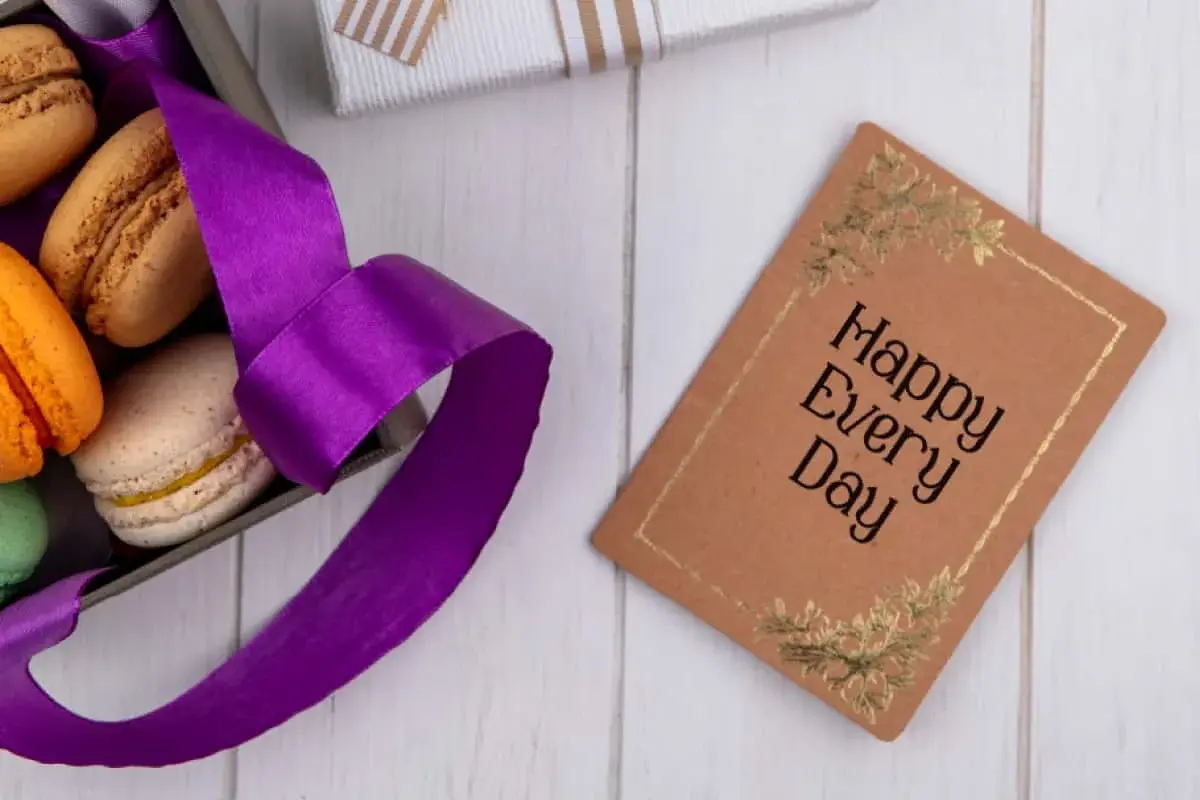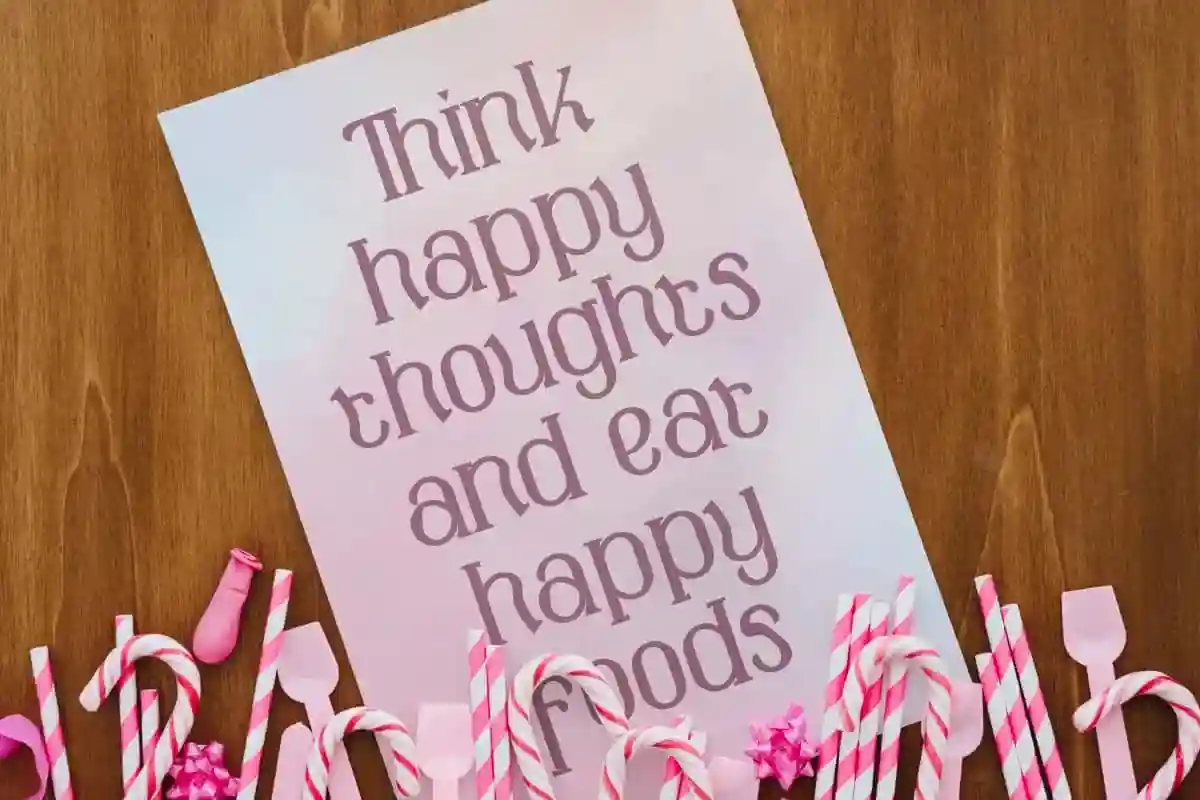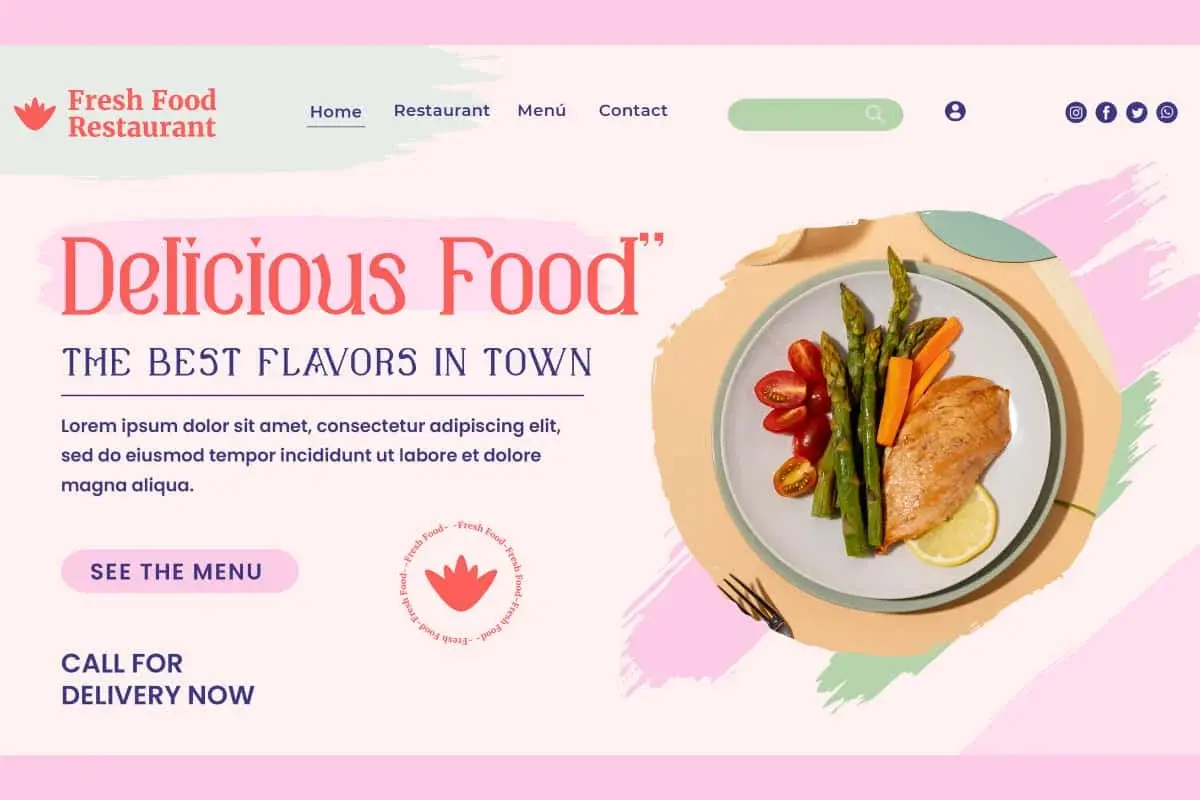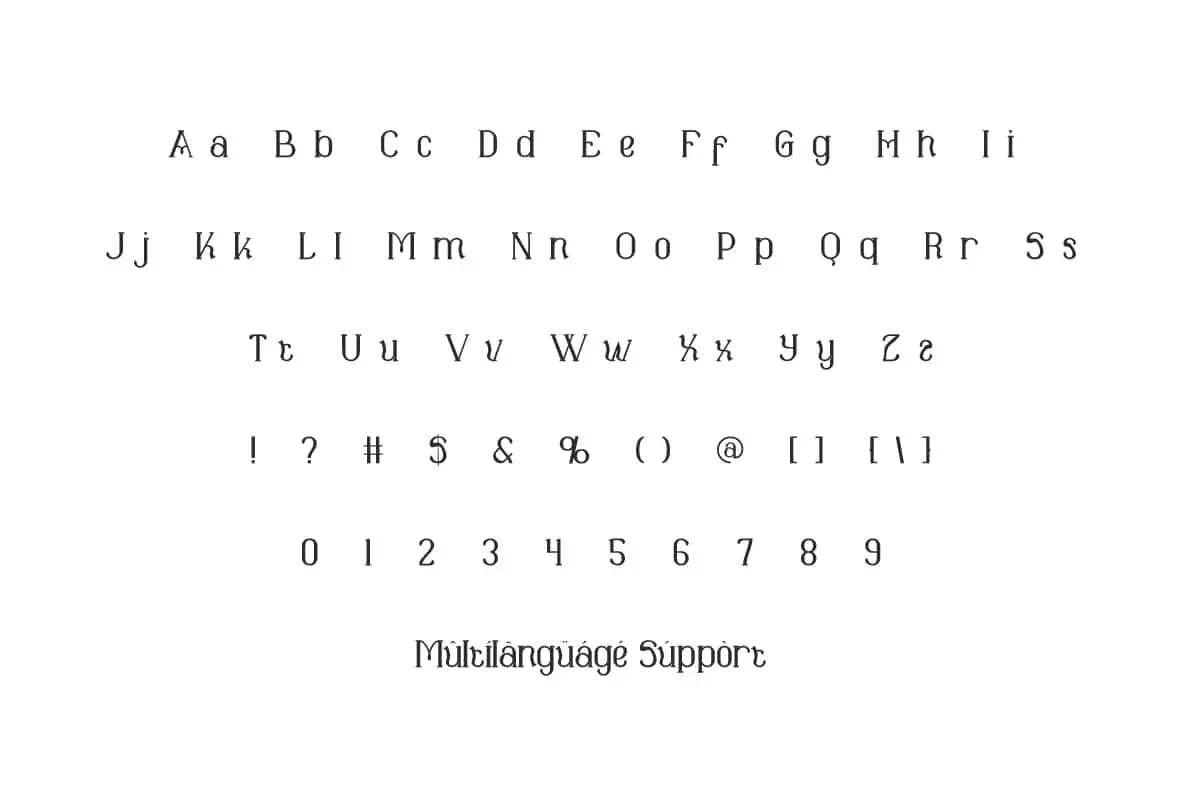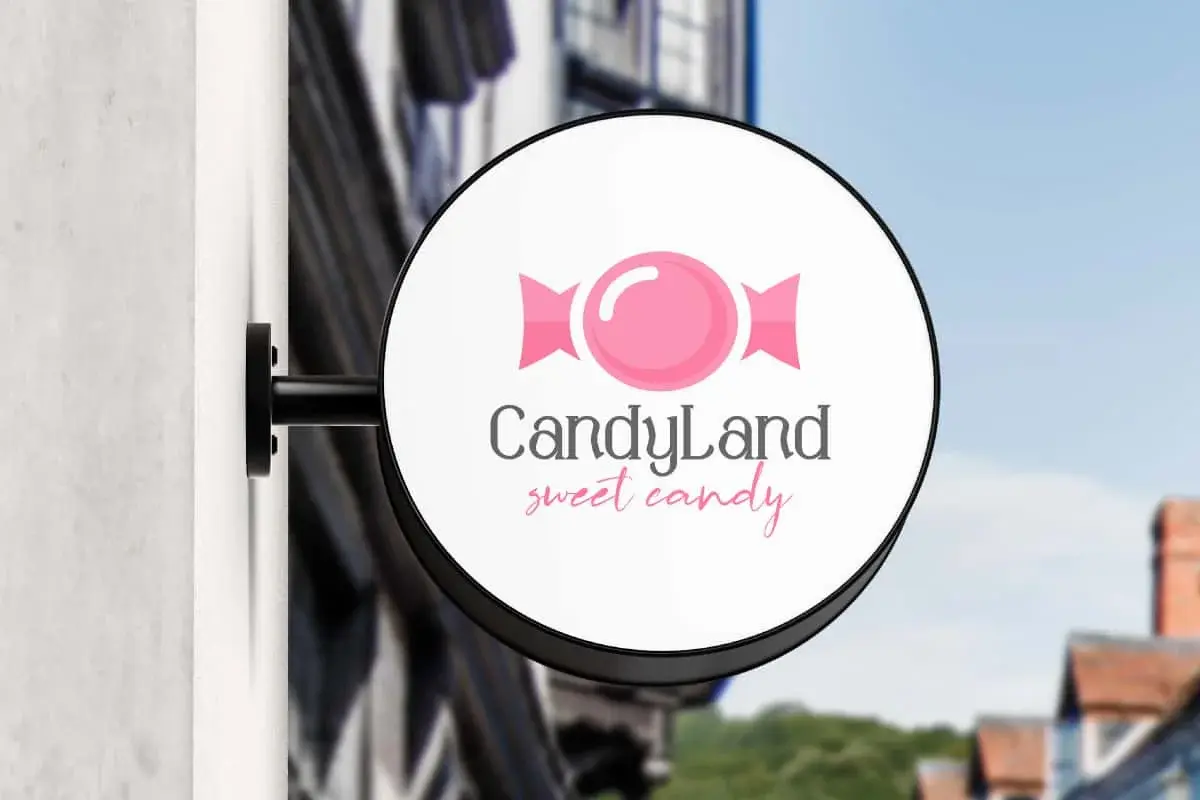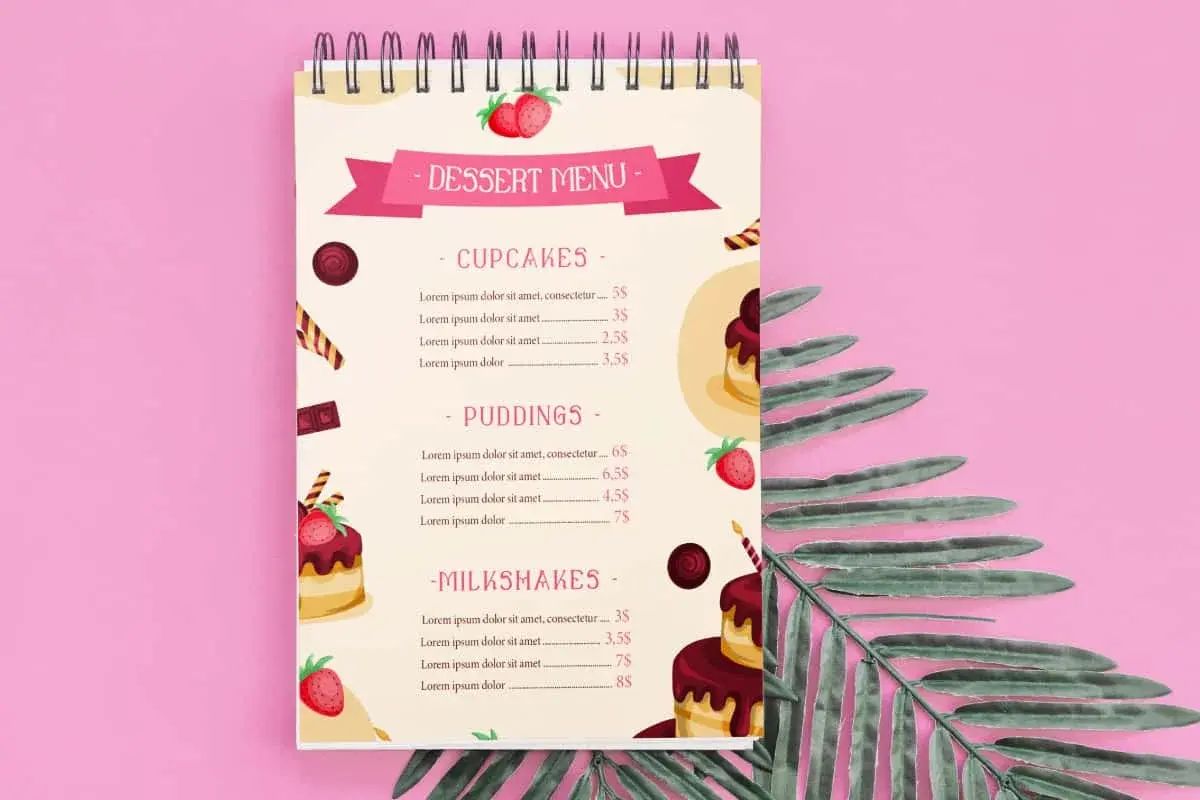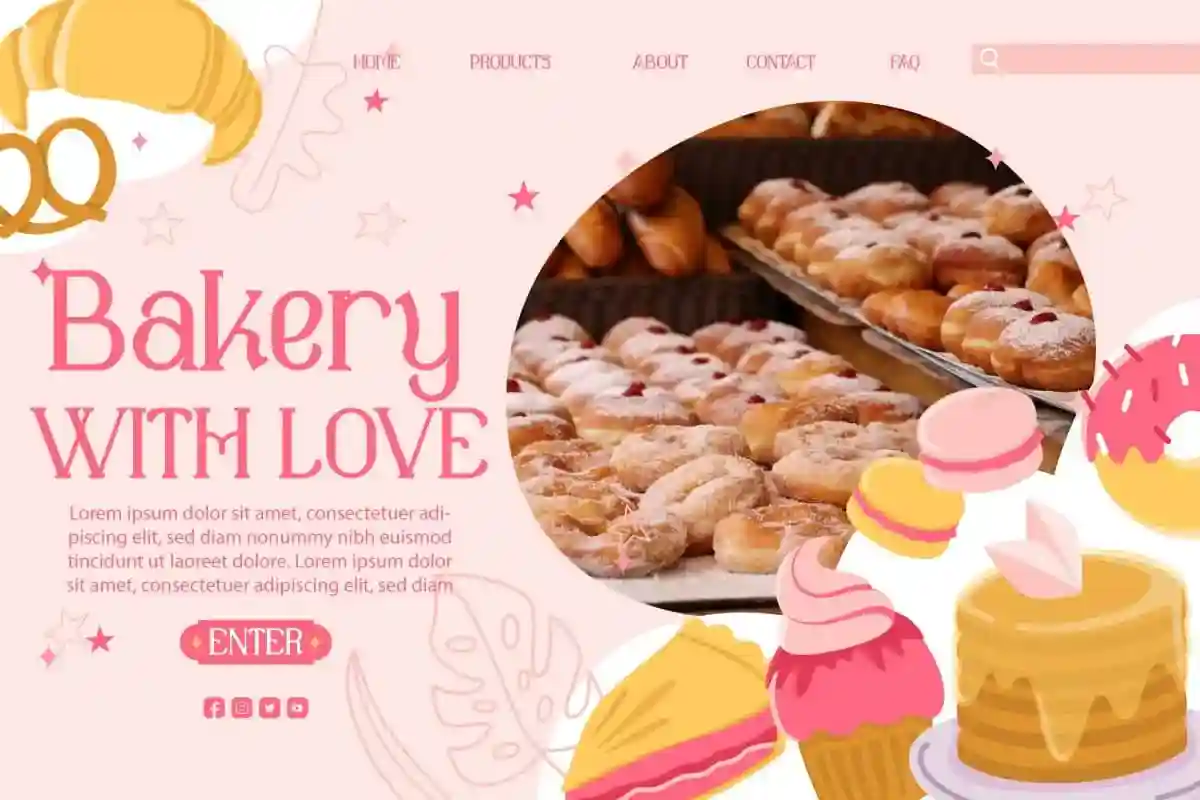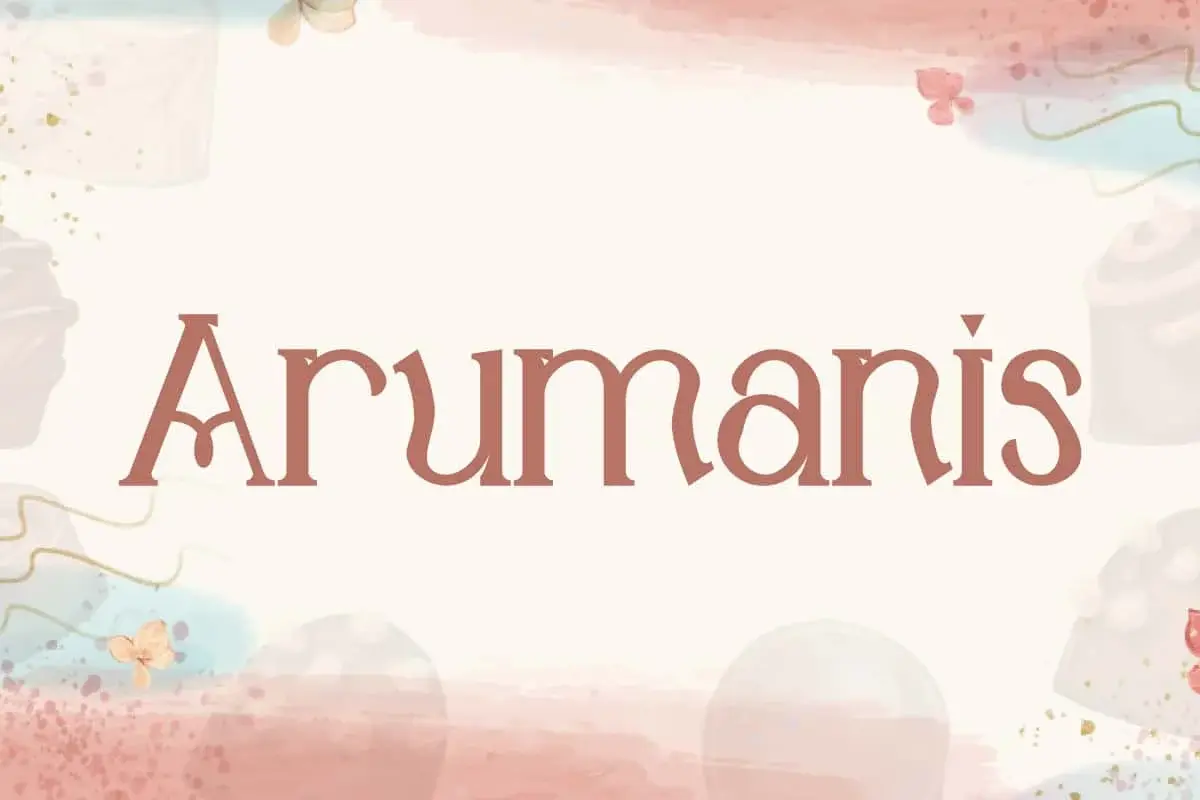
Arumanis Font is a sweet sophisticated unique slightly odd but impressive display font with a serif style with a variety of alternates designed to appeal.
Arumanis Font is a sophisticated unique slightly odd but impressive display font with a serif style. New collection in the world of typing. Perfect for any creative endeavor you use, such as bakery, bloggers, cafeteria, event organizer, food influencer, graphic design, pastry chef, restaurant, and many more.
Arumanis Font combines classic serif structures with a unique and unusual style, giving each letter a subtle organic feel with a handcrafted touch. Whether you’re working on blog, branding logo, brochure, card design, cover, invitation, flyer, menu, signage, sticker, website. This font contains a complete set of basic characters Uppercase and Lowercase, Numbers, Symbols, Punctuation and Alternates.